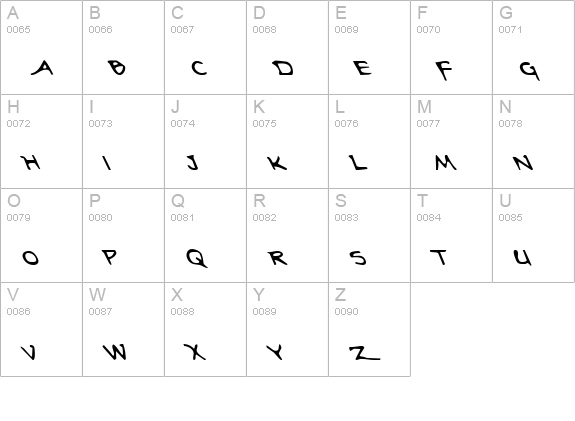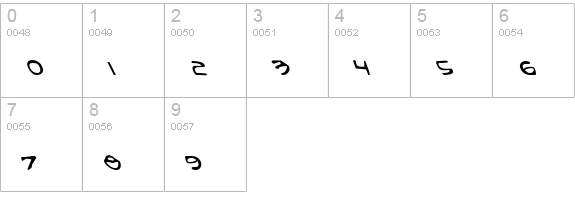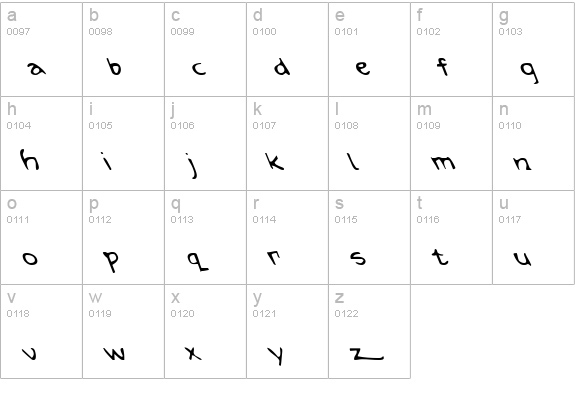
Arilon Leftalic font is a stylish and elegant typeface that exudes sophistication and charm. Its slanted design adds a touch of dynamism to any text, making it perfect for adding a modern twist to your projects. The fluid curves and sharp angles of Arilon Leftalic create a captivating visual impact, drawing attention to your words with effortless grace. What's even better is that Arilon Leftalic font is available for free download at FontsMarket.com. This means you can easily access this stunning typeface for all your design needs without any cost. Whether you're working on branding, posters, invitations, or any other creative project, Arilon Leftalic is sure to elevate your designs and leave a lasting impression. Download it today and let your creativity shine with this beautiful, freely available font.